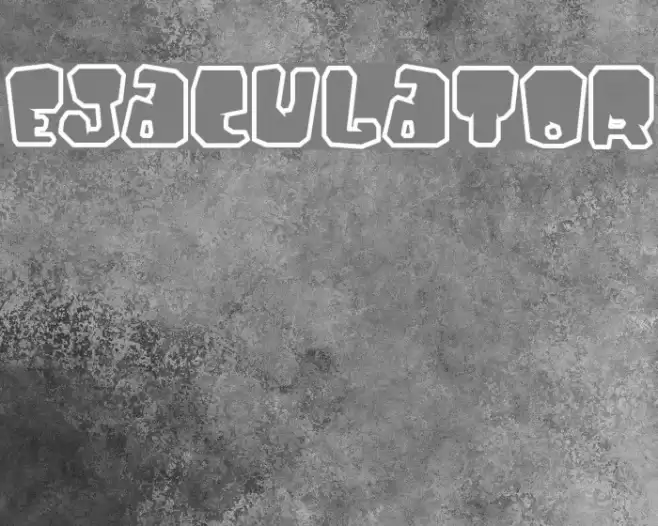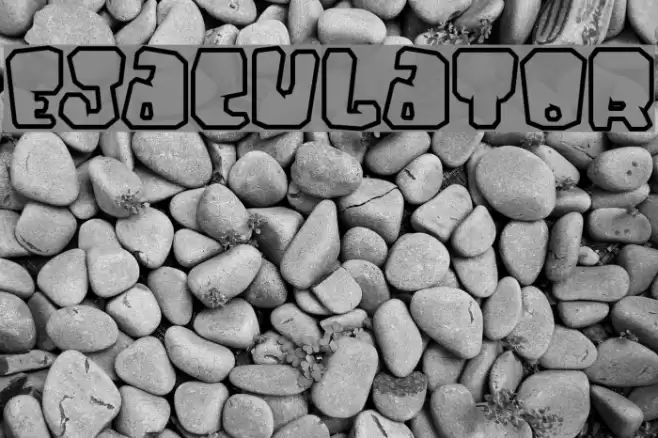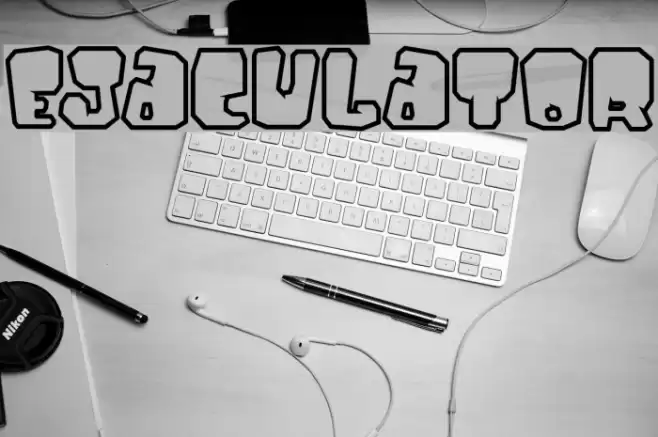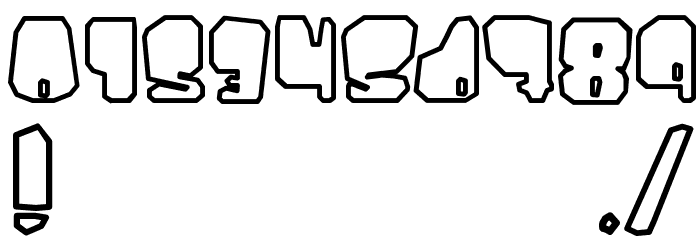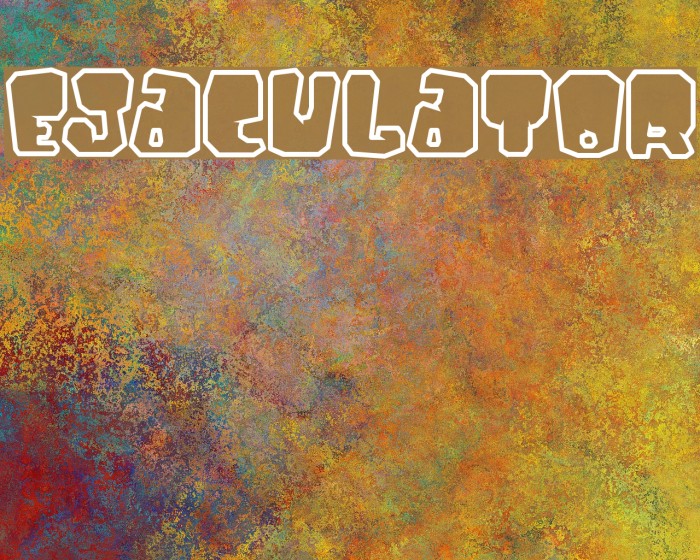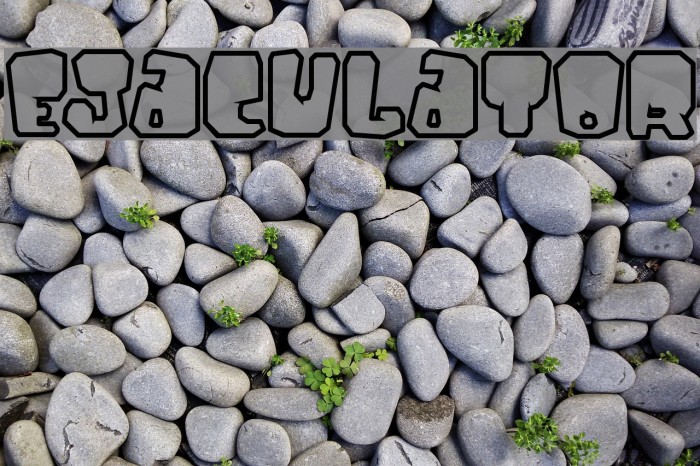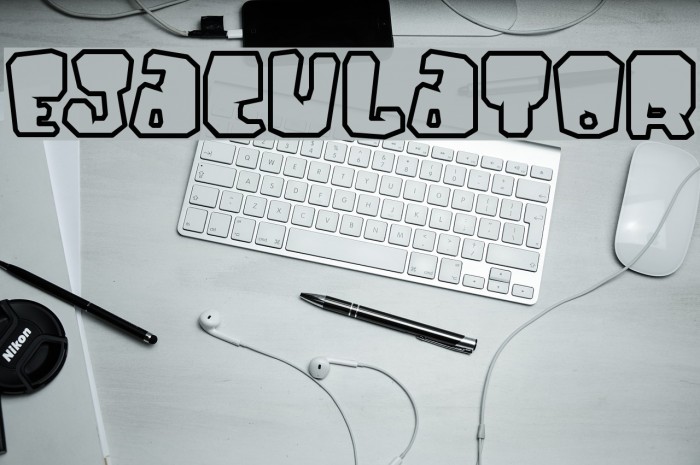
Ejaculator Font
Ejaculator Description
This font features a bold, geometric style with a distinct outline that gives each character a three-dimensional appearance. The letters are constructed with angular, block-like shapes, creating a futuristic and edgy look. The uppercase and lowercase letters maintain a consistent design, emphasizing uniformity and cohesion. The numbers and special characters follow the same aesthetic, ensuring a harmonious overall appearance. The font's unique style makes it stand out, ideal for projects that require a modern and eye-catching typeface.
A bold, geometric font with a three-dimensional outline and angular shapes from Cartoon fonts.
- Proposed Projects: Ideal for video game titles, sci-fi posters, and modern branding projects.
- Overall Style: Futuristic